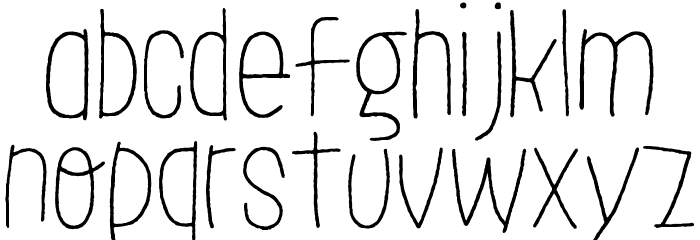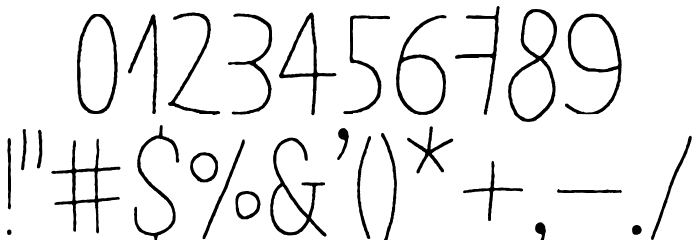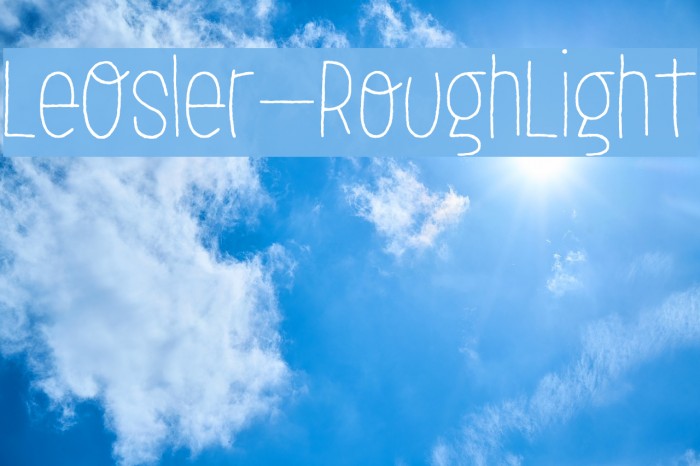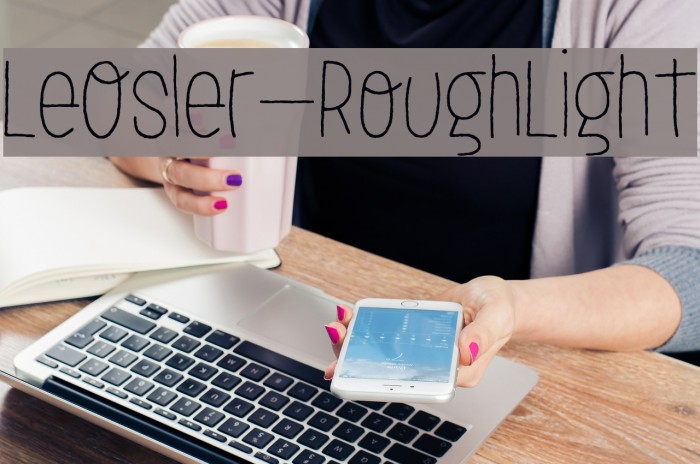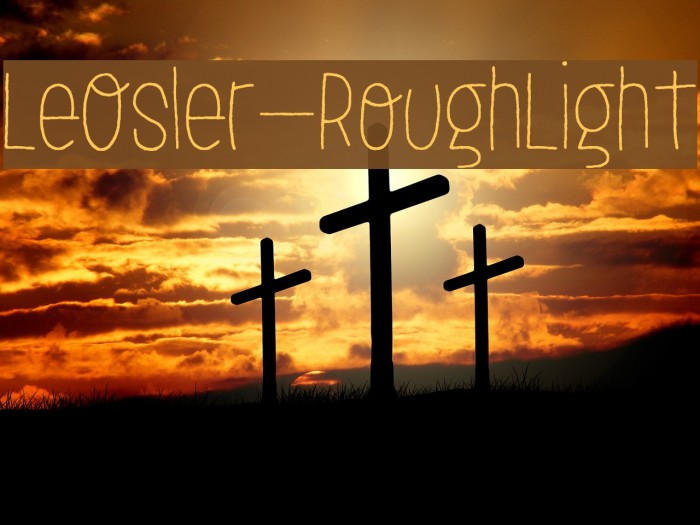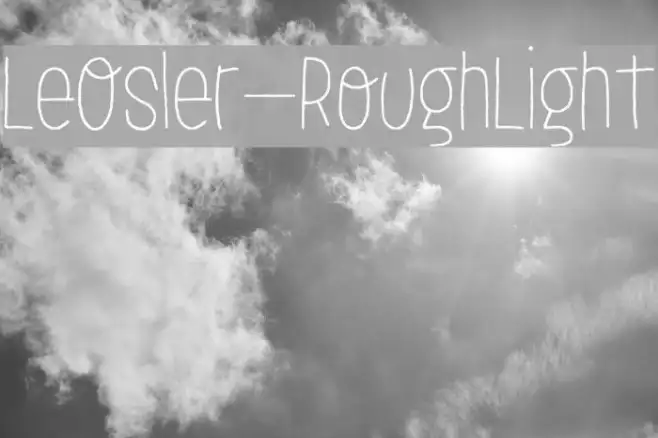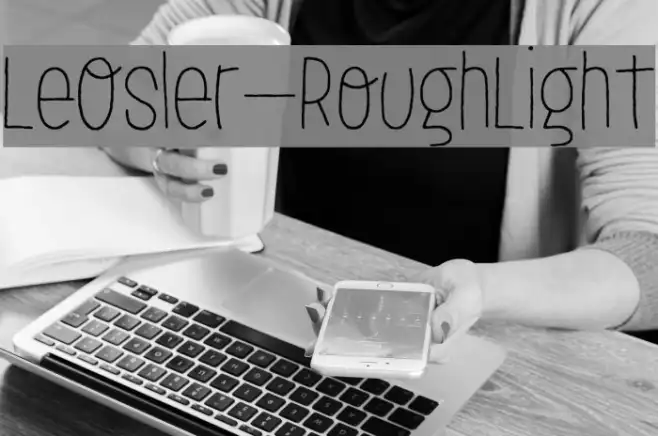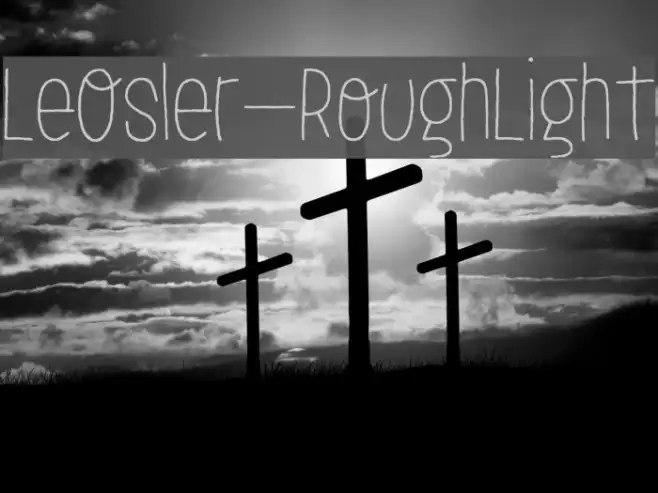
LeOsler-RoughLight Font
This font features a hand-drawn, rough aesthetic that gives it a casual and approachable feel. The letters are tall and narrow, with a slight irregularity in stroke width that adds to its handmade charm. The uppercase and lowercase letters maintain a consistent style, with rounded edges and a playful, informal appearance. Numbers and special characters follow the same design principles, ensuring a cohesive look across all text elements. The font's unique style makes it suitable for projects that require a personal touch or a whimsical vibe.
A hand-drawn, rough font with a casual and playful style.
- Proposed Projects: Ideal for greeting cards, children's books, casual branding, and creative posters.
- Overall Style: Casual
- Use Case: Headlines, Logos, Informal Text